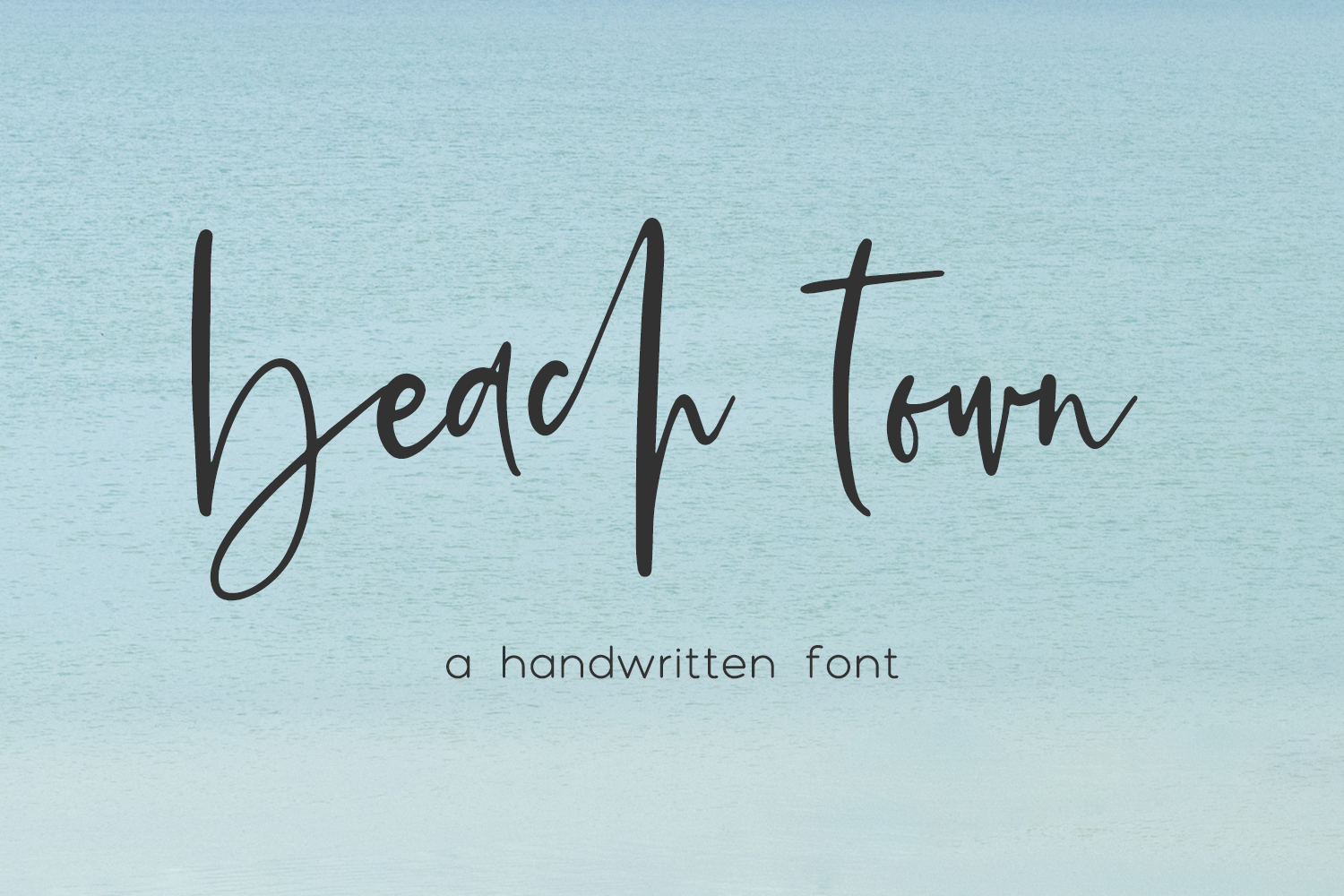
Beach Town - Handwritten Font
Introducing Beach Town Script, a handwritten signature style font. This chic, stylish font features a messy, casual look, mimicking handwriting.
Beach Town Script is best for:
- logos + branding
- website design + website accents - think design blogs, travel blogs, fashion blogs, & more
- clean print design, like magazines + flyers
- header elements that need handwritten touch
- quote graphics for social media
Beach Town includes:
- full upper + lowercase characters
- numbers + punctuation
- 26 lowercase alternate characters
- 36 ligatures: am an ar at bb bl cc ch ck cl dd ee er ff fi fl fo gg ll mm nn of ol oo or ph pl pp rr sh ss st th tr tt ur